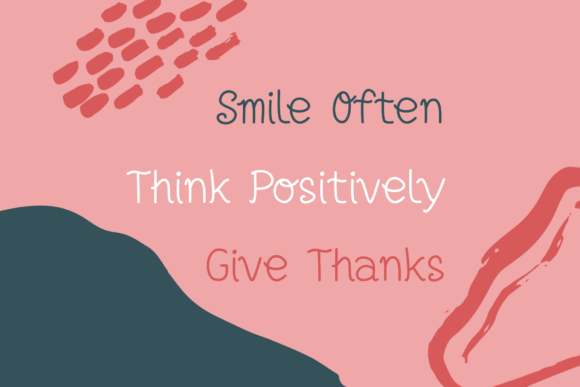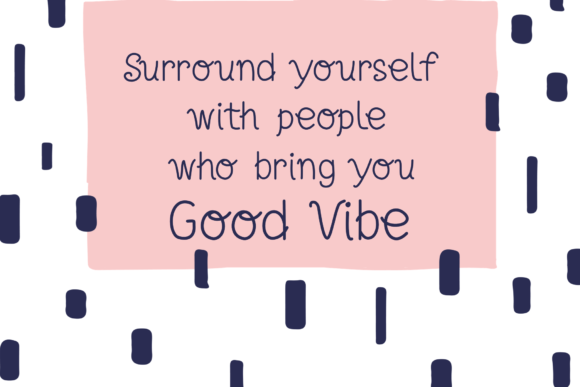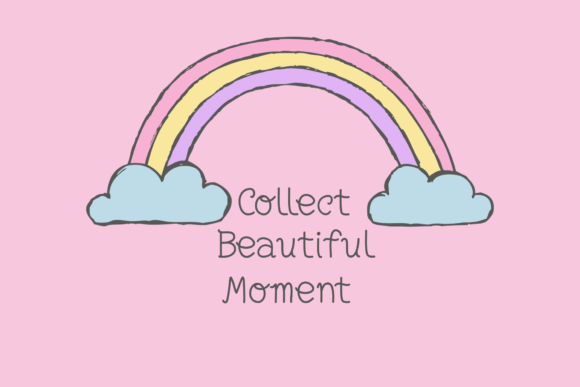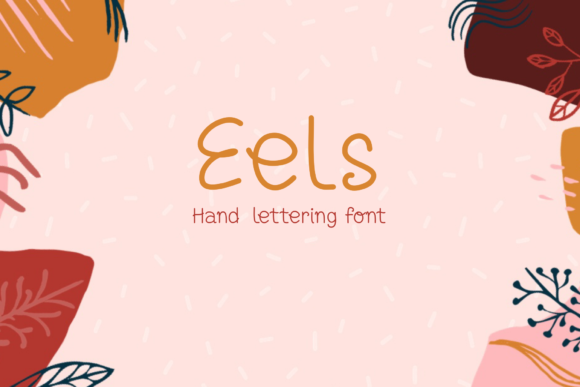
Eels Font: A Dainty and Charming Handwritten Font for Your Creative Projects
Are you a designer or crafter looking for a unique and natural font to enhance the appearance of your creative projects? Look no further than Eels Font! This dainty and charming handwritten font is sure to make a wonderful addition to your font library, adding a touch of elegance and sophistication to any item.
What Makes Eels Font So Special?
Eels Font is a one-of-a-kind handwritten font that boasts a natural and effortless look. Its delicate and charming design makes it perfect for a wide range of creative projects, from digital designs to craft projects. Whether you’re working on a logo, a poster, a card, or a DIY craft, Eels Font is sure to add a touch of whimsy and charm.
Key Features of Eels Font
• Handwritten Design: Eels Font features a beautiful handwritten design that looks like it was written with a pen. Its natural and fluid strokes make it perfect for creating a personal and intimate feel.
• Dainty and Charming: The font’s delicate and charming design makes it perfect for creating elegant and sophisticated designs.
• Unique and Natural: Eels Font has a one-of-a-kind design that sets it apart from other fonts. Its natural look makes it perfect for creating designs that look effortless and organic.
• Versatile: Eels Font can be used for a wide range of creative projects, from digital designs to craft projects.
How to Use Eels Font in Your Creative Projects
Eels Font is easy to use and can be incorporated into a wide range of creative projects. Here are some ideas to get you started:
• Digital Designs: Use Eels Font to create beautiful digital designs, such as social media graphics, blog posts, and email newsletters.
• Print Designs: Eels Font is perfect for print designs, such as posters, flyers, brochures, and business cards.
• Craft Projects: Add a personal touch to your craft projects, such as cards, scrapbook pages, and journal entries, with Eels Font.
• Logo Design: Use Eels Font to create a unique and memorable logo for your business or brand.
Tips for Getting the Most Out of Eels Font
Here are some tips for getting the most out of Eels Font:
• Experiment with Different Sizes: Eels Font looks great in a variety of sizes, from small and delicate to large and bold.
• Pair with Other Fonts: Eels Font pairs well with other fonts, such as sans-serif fonts and script fonts.
• Use in Combination with Images: Eels Font looks great in combination with images, such as photographs and illustrations.
• Make it Your Own: Don’t be afraid to experiment and make Eels Font your own. Try adding different colors, textures, and effects to create a unique look.
Eels Font is a dainty and charming handwritten font that is sure to make a wonderful addition to your font library. Its natural and unique design makes it perfect for a wide range of creative projects, from digital designs to craft projects. With its versatility, ease of use, and beautiful design, Eels Font is a must-have for designers and crafters alike.